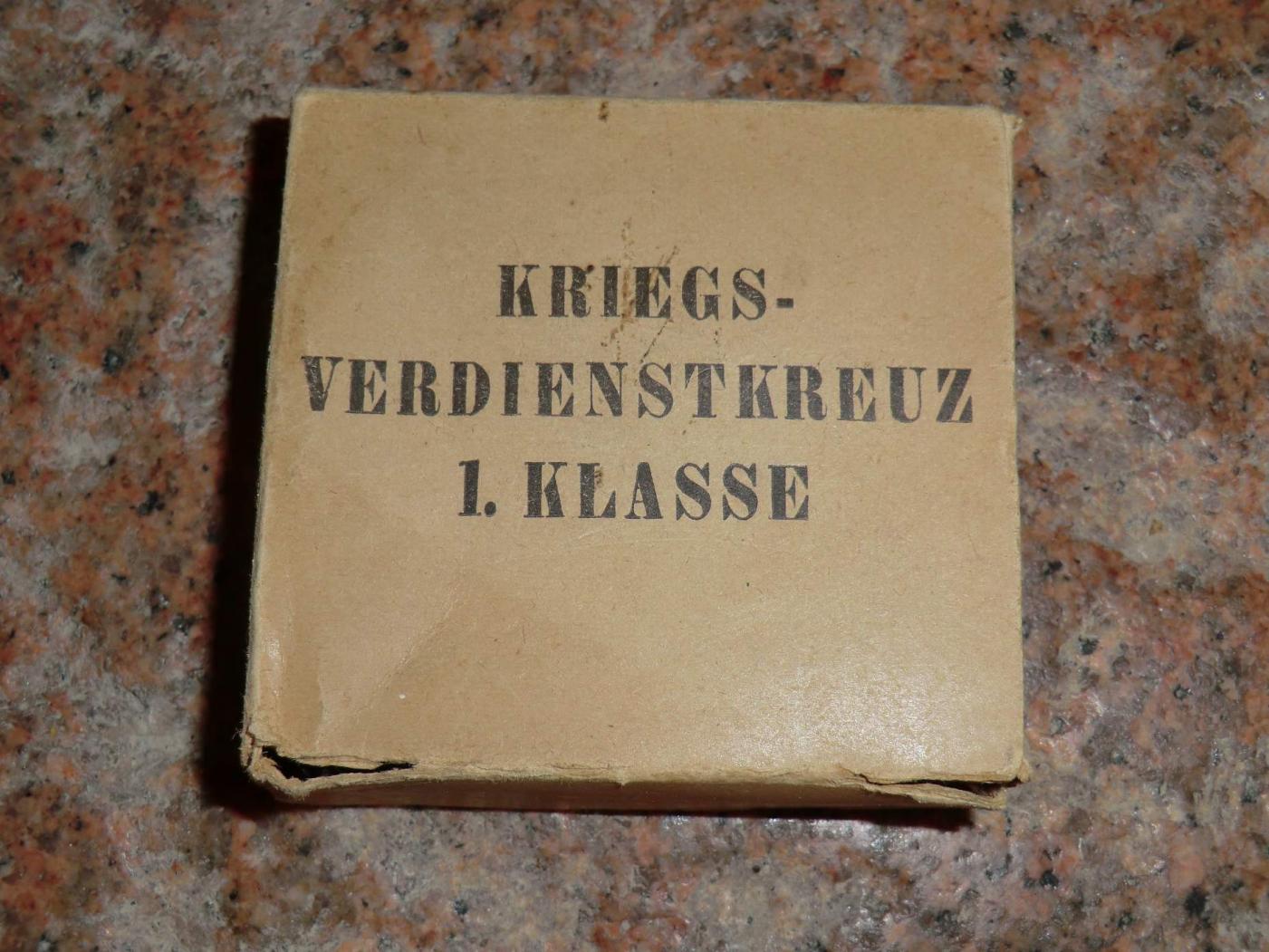
WW2 award box font identification help
Dear all, please help me to find a similar or so close free font set for this german award box. Made in the 1930-1940 in germany. Many thanks.
Looks very much like Bodoni Black Condensed. It's not an exact match (look at the R & S) but it's very close, plus Bodoni has been produced by many different font companies over the decades so there are a lot of slight design variants out there to consider.
This looks even closer - Ultra Bodoni Extra Condensed, designed in 1933 by Morris Fuller Benton for American Type Founders.